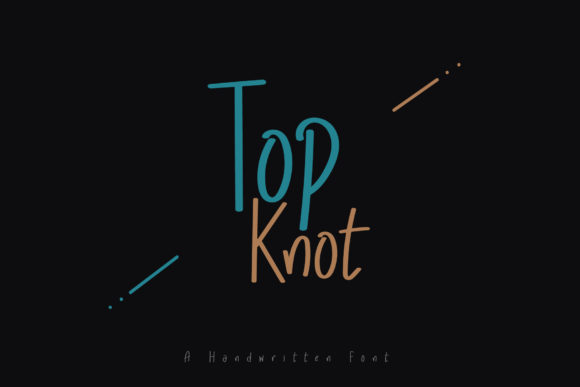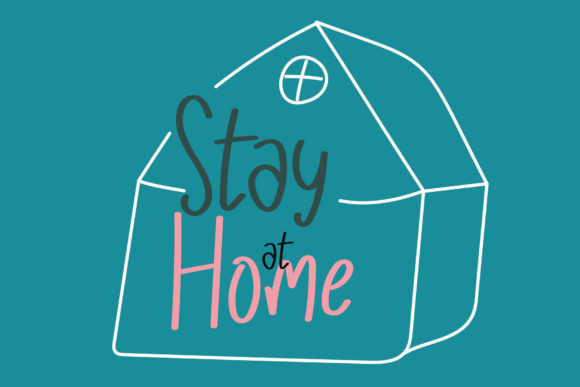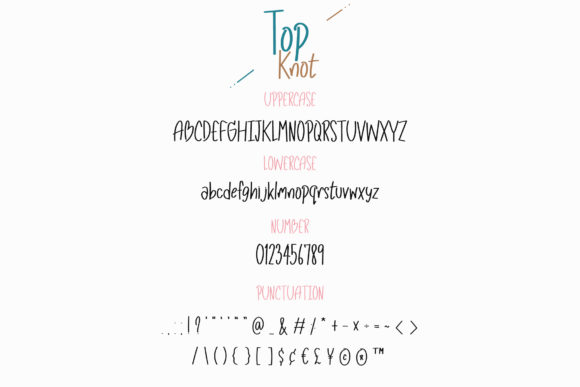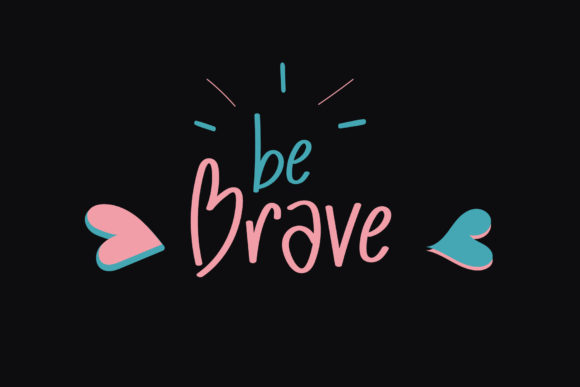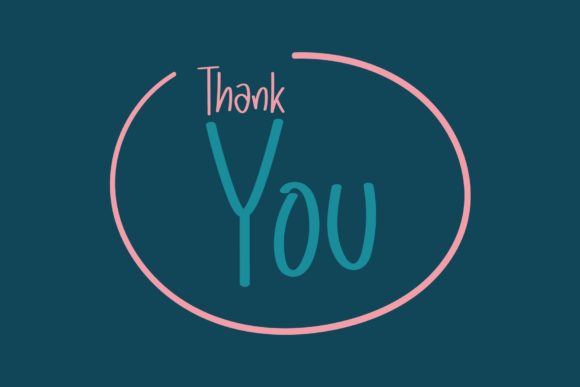
Top Knot Font
About Top Knot Font
Top Knot is a modern and friendly handwritten font. Clean and a little bit quirky, this font is the perfect fit for all of your logos, branding, social media, and crafty DIY projects.